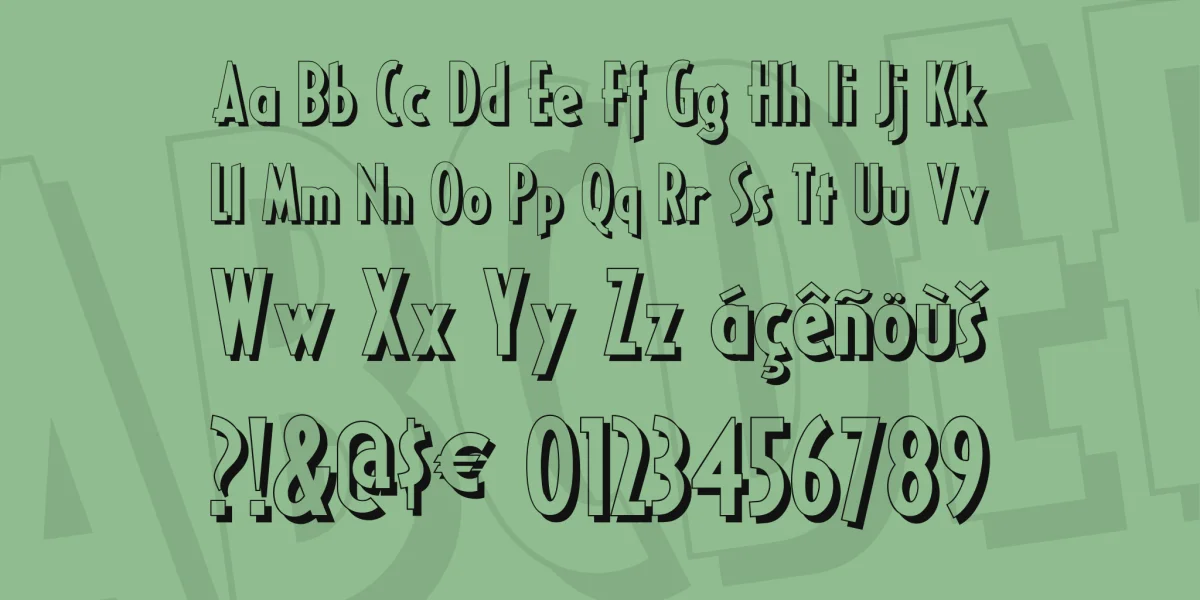
This font is basically an outlined and drop-shadowed version of a classic Deco favorite of mine, AU Casablanca, which should also explain its name to any fan of the classic 1941 movie.